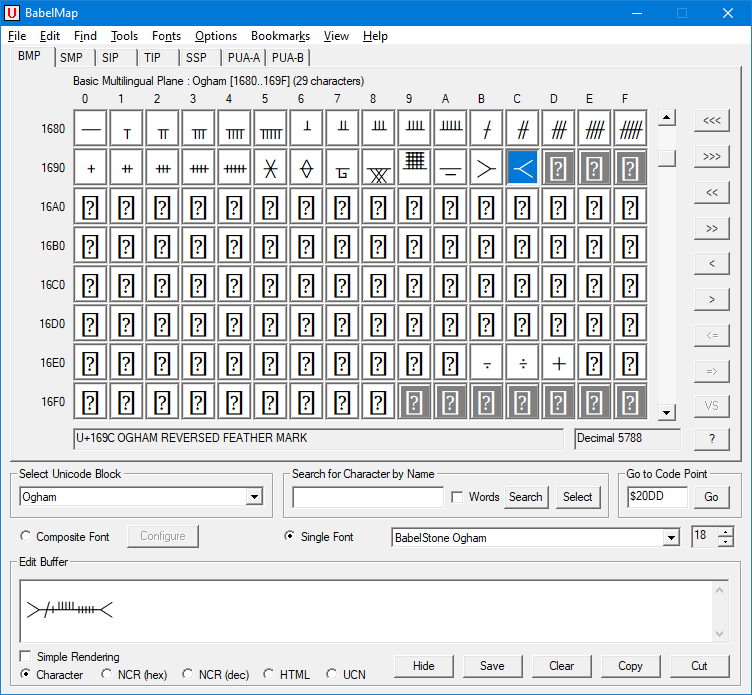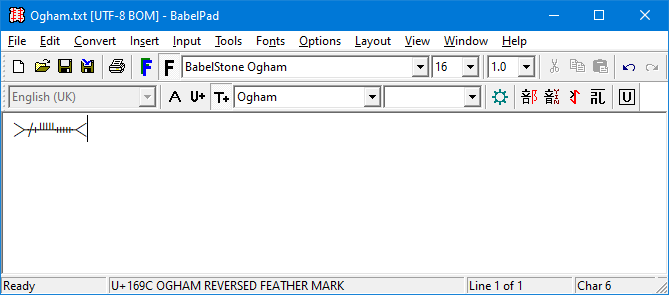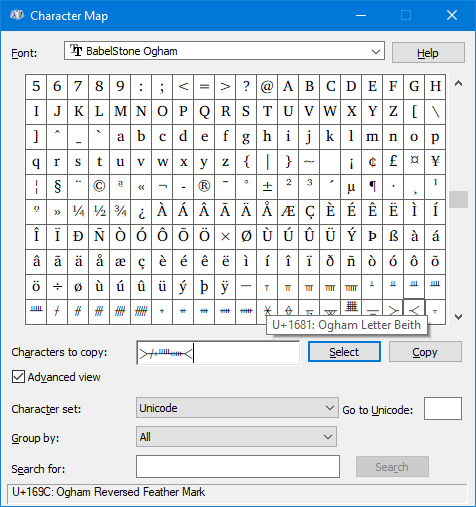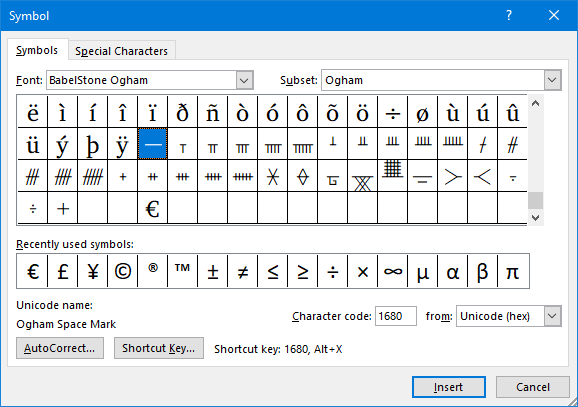
These are a set of twelve Unicode Ogham fonts in seven font families, representing a variety of different styles of Ogham letters found in manuscripts and on Ogham stone inscriptions. These fonts do not map Ogham glyphs to Latin letters like most fonts, but use the special Ogham characters defined in the Unicode Standard (see How to Input Unicode Ogham below for more information).
Font | Style | Description |
---|---|---|
BabelStone Ogham | Regular | General-purpose stemline font with manuscript-style glyph forms. |
Italic | The same, but with directionally-angled B-series and H-series letters. | |
BabelStone Ogham Bound | Regular | Stemline font with bind letters. |
Italic | The same, but with directionally-angled B-series and H-series letters, and directionally-angled vowel letters. | |
BabelStone Ogham Fixed | Regular | Monospaced stemline font. |
BabelStone Ogham Stemless | Regular | Stemless font with dot-shaped vowel letters. |
BabelStone Ogham Lithic | Regular | Stemline font with bold strokes and dot-shaped vowel letters, emulating the style of letters found on classic Ogham pillar stones. |
BabelStone Ogham Pictish | Regular | Stemline font based on the styles of Ogham letters found on the Ogham stone inscriptions from the Pictish areas of Scotland (eastern coast of Scotland, Orkney Isles, and Shetland Isles). The font comprises Regular, Bold, Italic and Bold-Italic versions which are not actually bold and/or italic but have different styles of letters (bold for bind letters; italic for directionally-angled letters). This allows the user to select a different style of Ogham letters by simply changing the font style. Regular style has no bind letters, straight B-series and H-series letters, straight vowel letters. |
Italic | No bind letters, angled B-series and H-series letters, angled vowel letters. | |
Bold | Bind letters, straight B-series and H-series letters, straight vowel letters, X-shaped P, hammerhead A. | |
Bold-Italic | Bind letters, angled B-series and H-series letters, angled vowel letters, X-shaped P. | |
BabelStone Ogham Special | Regular | Same as BabelStone Ogham Pictish Regular, but has some rare glyph forms: S-shaped A, Rabbit-eared D, Diagonal I, S-shaped M-series letters, and disjoined letter Eabhadh. This font is not intended to be used on its own, but as a source of special glyph forms for certain letters when used in conjunction with BabelStone Ogham Pictish. |
Pictish Ogham inscriptions are written using a variety of styles of Ogham lettering, and many include unusual letters such as "Hammerhead A" and "Rabbit-eared D" that may be insignificant glyph variants or may indicate phonetic distinctions. Representing these Ogham texts accurately is impossible using a generic Ogham font, but by using the BabelStone Ogham Pictish and BabelStone Ogham Special fonts it is possible to render Pictish Ogham texts with glyph forms that closely match those used in the actual inscriptions. Two examples of particularly problematic Ogham texts are shown below.
Ogham inscription on the sides of a cross slab from Bressay in Shetland (BREAY/1).
Drawings by John Borland, © RCAHMS
Screenshot of text rendered using the BabelStone Ogham Pictish and BabelStone Ogham Special fonts in Internet Explorer 10 under Windows 7
Unicode text of inscription rendered using the BabelStone Ogham Pictish (Regular and Italic) and BabelStone Ogham Special fonts (using WOFF fonts if these fonts are not installed on your local machine)
The cross of Nahhtvddadds, daughter of Ann[...], and Benises, son of Droann
Ogham inscription on the surface of a slab from Lunnasting in Shetland (LTING/1).
Drawing by Ian G. Scott, © RCAHMS
Screenshot of text rendered using the BabelStone Ogham Pictish and BabelStone Ogham Special fonts in Internet Explorer 10 under Windows 7
Unicode text of inscription rendered using the BabelStone Ogham Pictish (Bold and Bold-Italic) and BabelStone Ogham Special fonts (using WOFF fonts if these fonts are not installed on your local machine)
BabelStone Ogham Regular (36 points) |
BabelStone Ogham Italic (36 points) |
BabelStone Ogham Bound Regular (36 points) |
BabelStone Ogham Bound Italic (36 points) |
BabelStone Ogham Fixed (36 points)
BabelStone Ogham Stemless (36 points)
BabelStone Ogham Lithic (36 points)
BabelStone Ogham Pictish Regular (36 points) |
BabelStone Ogham Pictish Italic (36 points) |
BabelStone Ogham Pictish Bold (36 points) |
BabelStone Ogham Pictish Bold Italic (36 points) |
BabelStone Ogham Special (36 points)
The tables below render each character in the specified BabelStone Ogham font, either using the font installed on your local machine or using WOFF fonts if the font is not installed on your local machine.